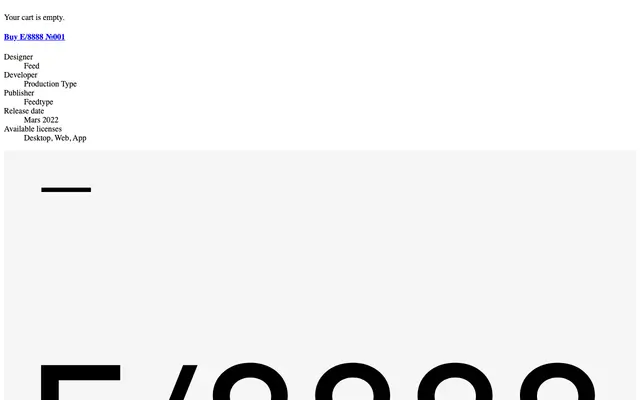
E8888-001
An experimental display typeface from Canadian foundry Feedtype with highly abstract, constructed letterforms that sit outside conventional typographic traditions.
Built on an unconventional structural logic, E8888-001 pushes letterform construction toward abstract, mechanical territory rarely seen in functional type. The foundry Feedtype, based in Canada, produces work oriented toward the experimental end of type design, and this release reflects that position. It suits editorial, poster and identity contexts where typographic distinctiveness takes priority over legibility at small sizes.
A highly unconventional display typeface with an experimental, constructed character structure that resists easy classification within traditional categories; its mechanical and abstract letterforms place it firmly in the experimental display space.